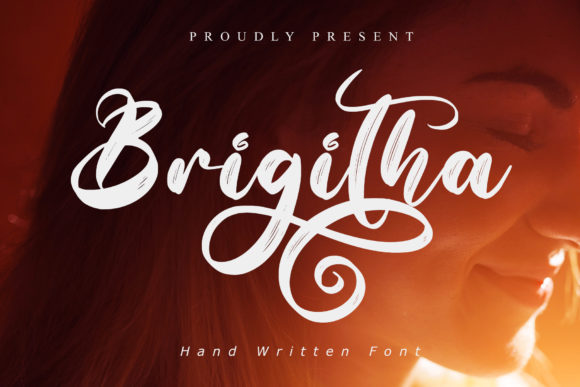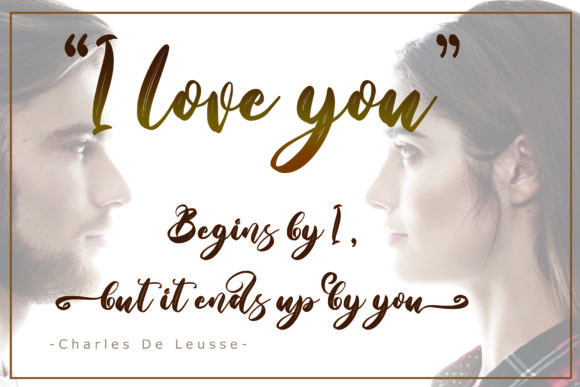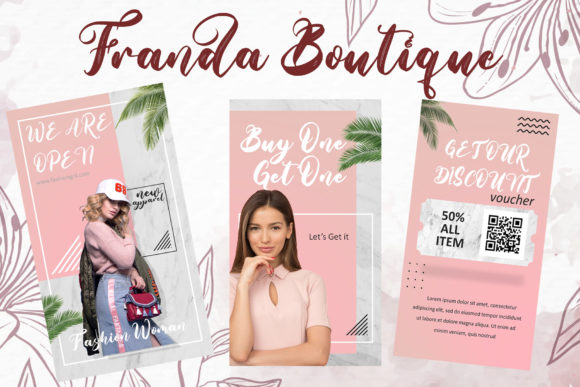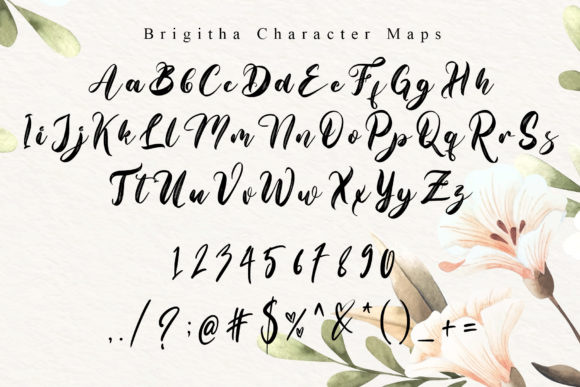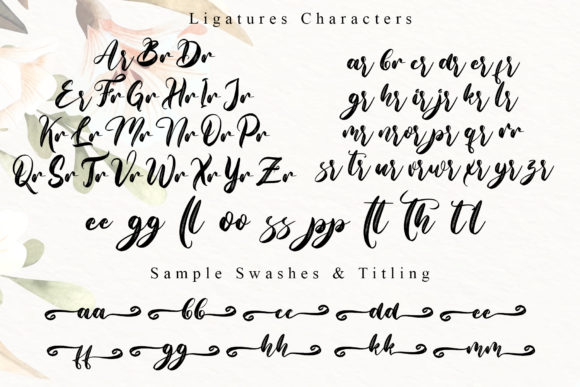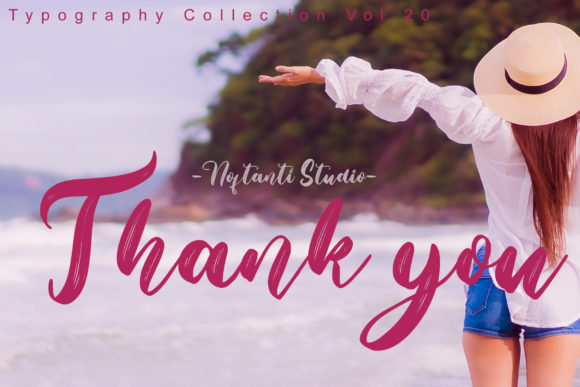
Freebie Wednesday: Brigitha Font
Brigitha is a refined, all round, and cursive handwritten font. It has beautiful and well-balanced characters and as a result, it matches a wide pool of designs.